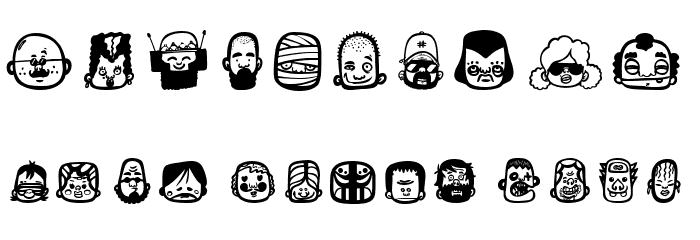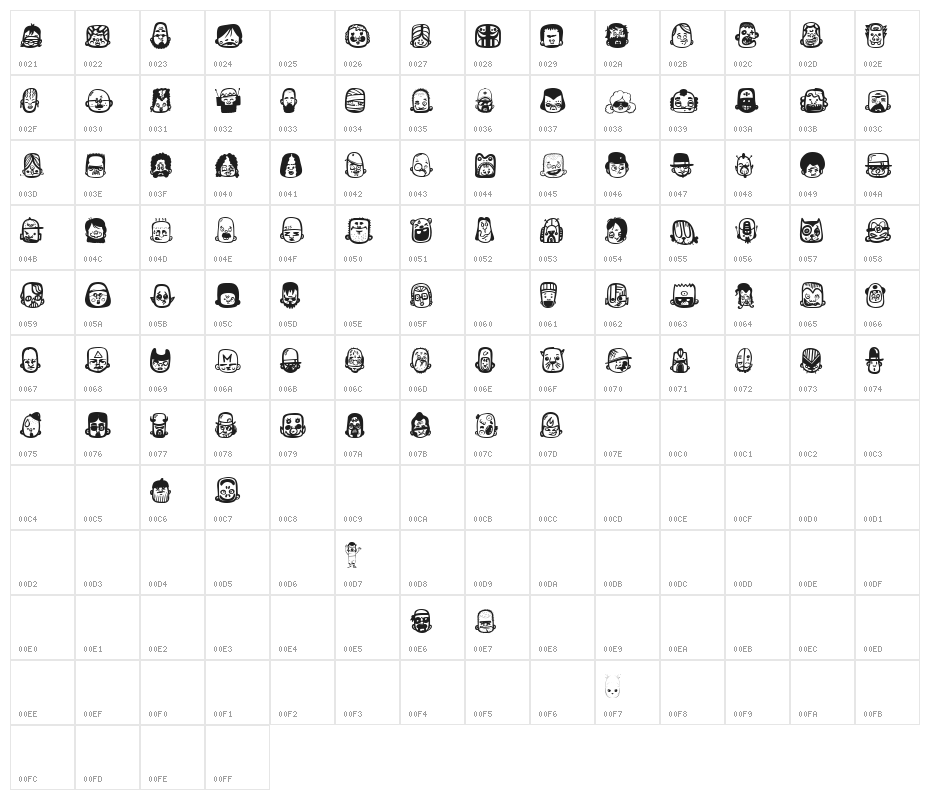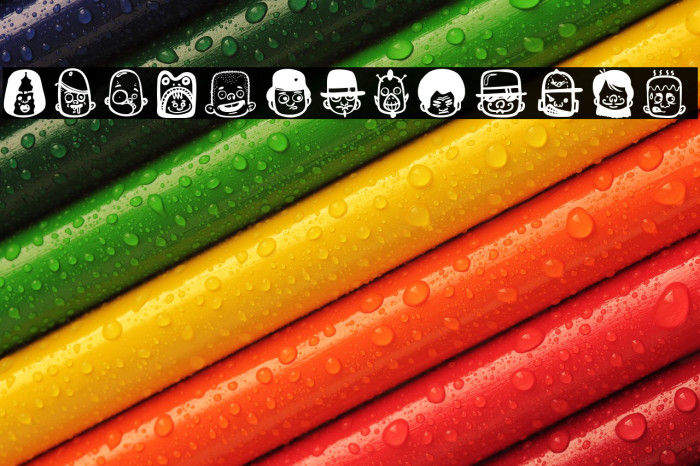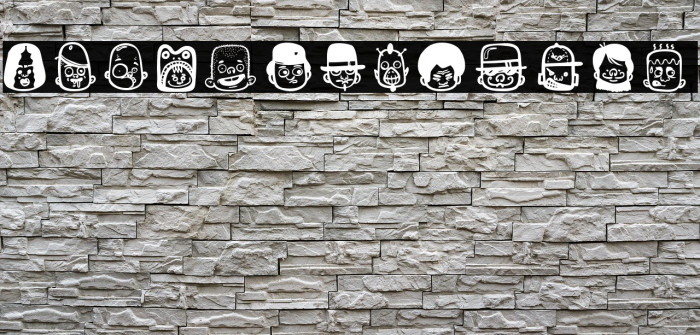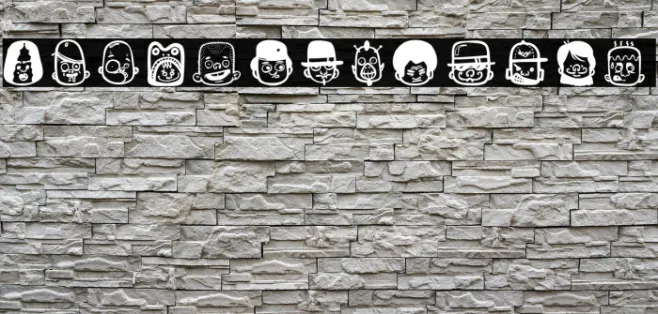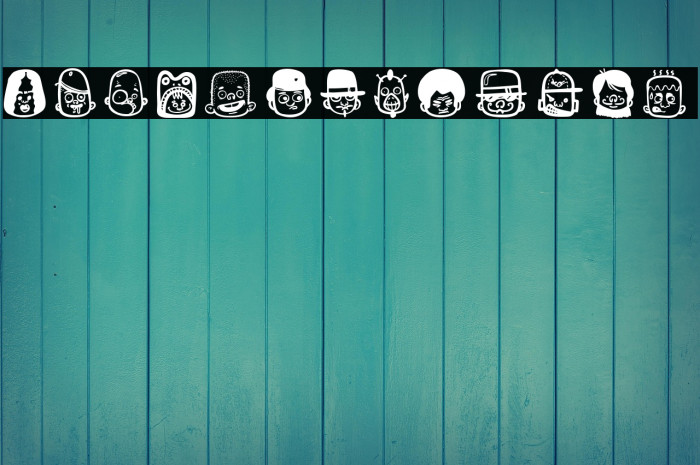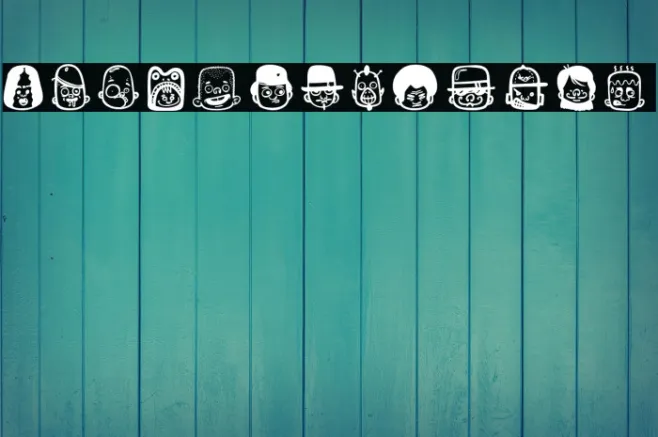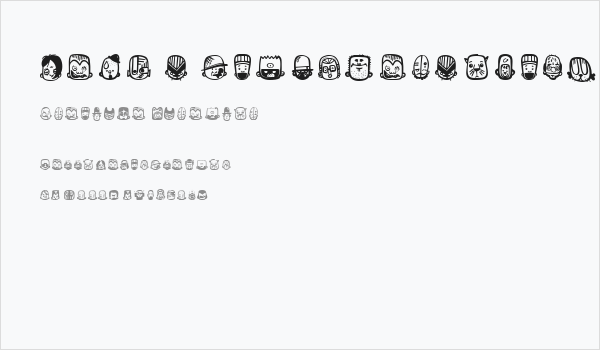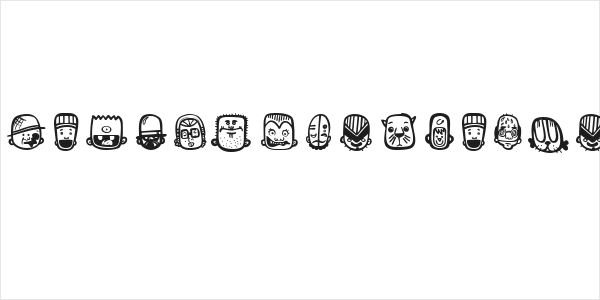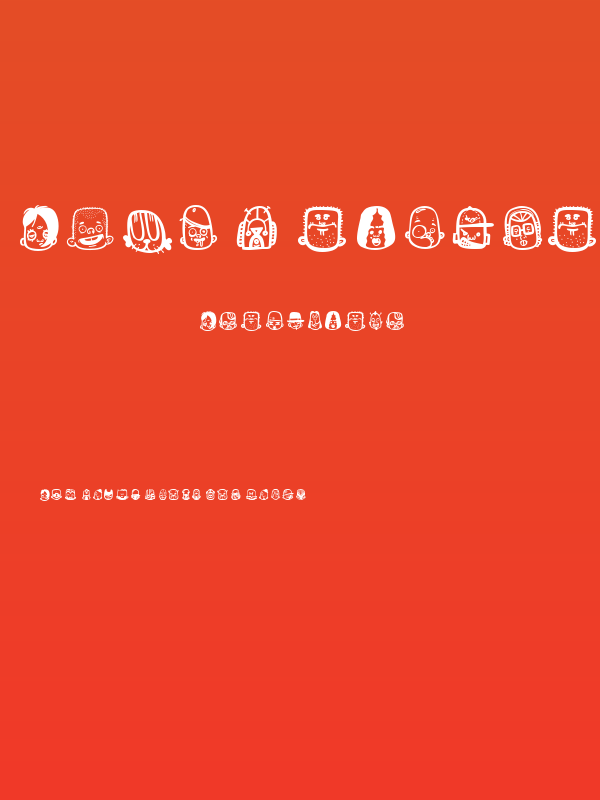
Teubés pack_PersonalUseOnly Font
Teubés pack_PersonalUseOnly Description
A playful and highly decorative dingbat font featuring a wide variety of quirky, cartoon-style character faces, each with unique expressions and accessories, rendered in bold black outlines with filled details.
| Overall Style | Decorative, Playful, Cartoonish |
| Use Case | Icons, Decorative elements, Themed graphics |
| Proposed Projects | Children’s books, party invitations, posters, stickers, comic art, playful branding. |